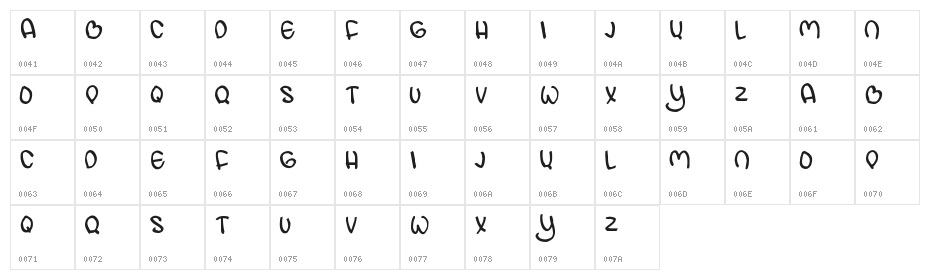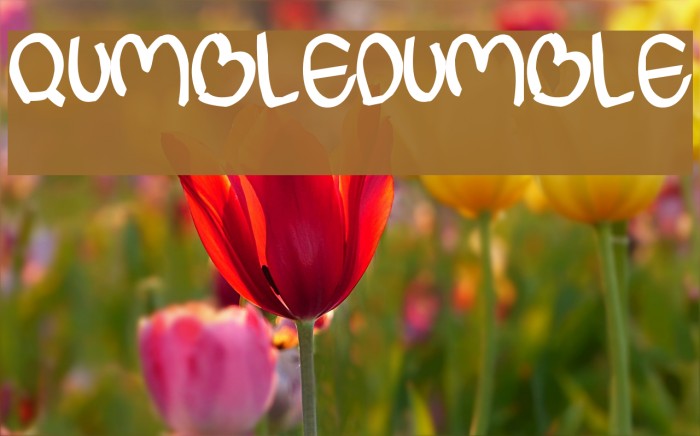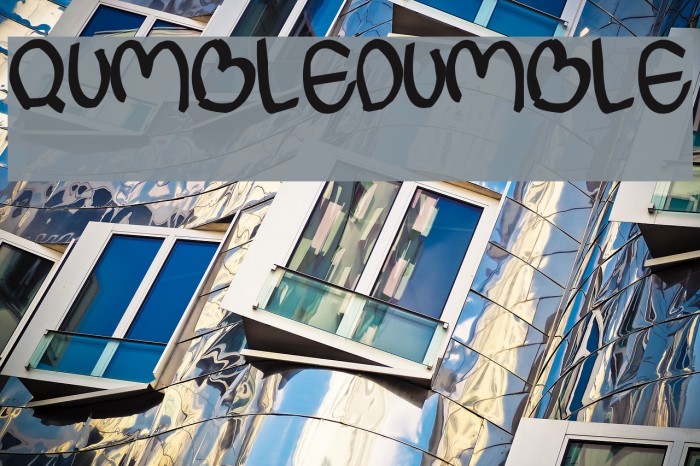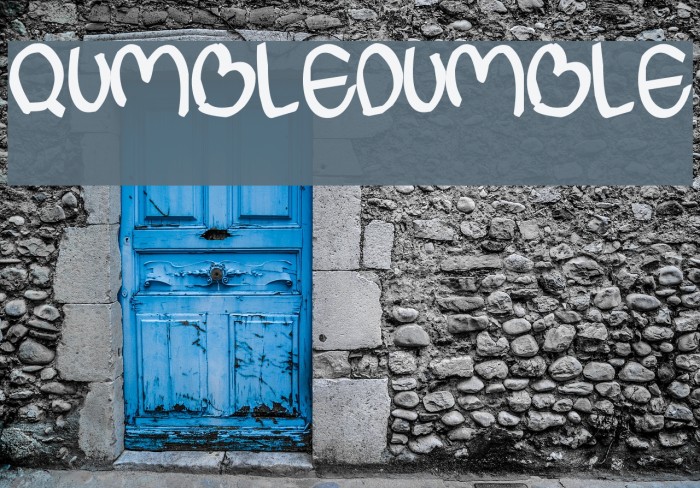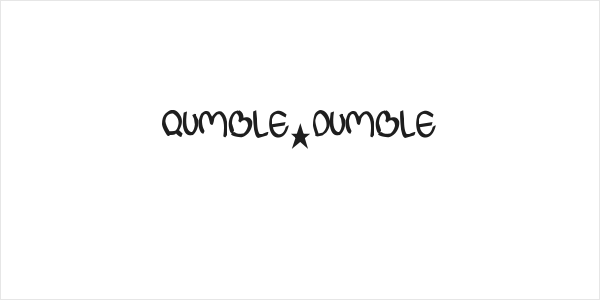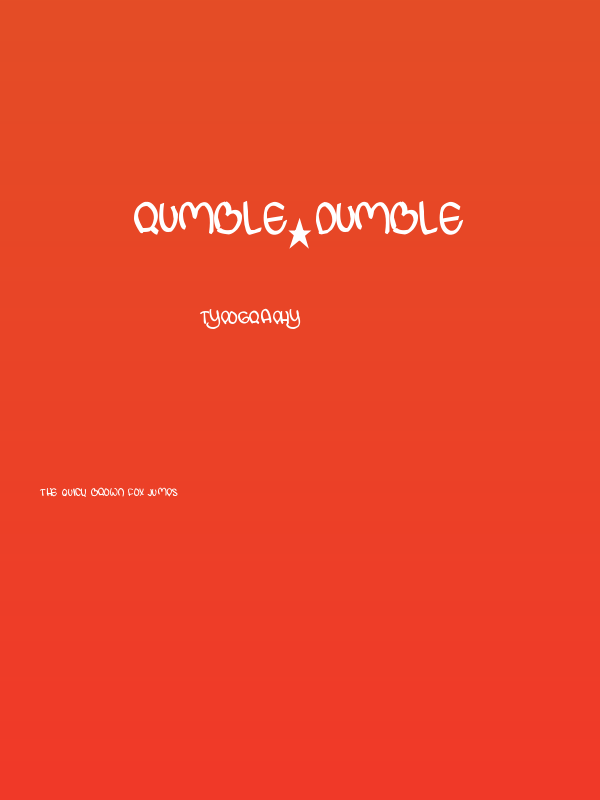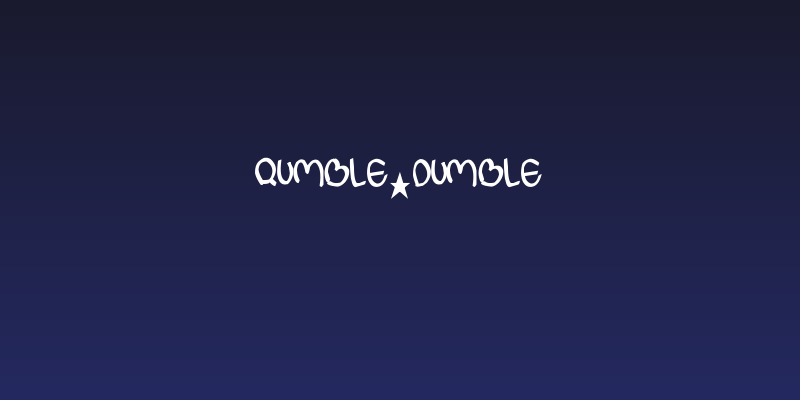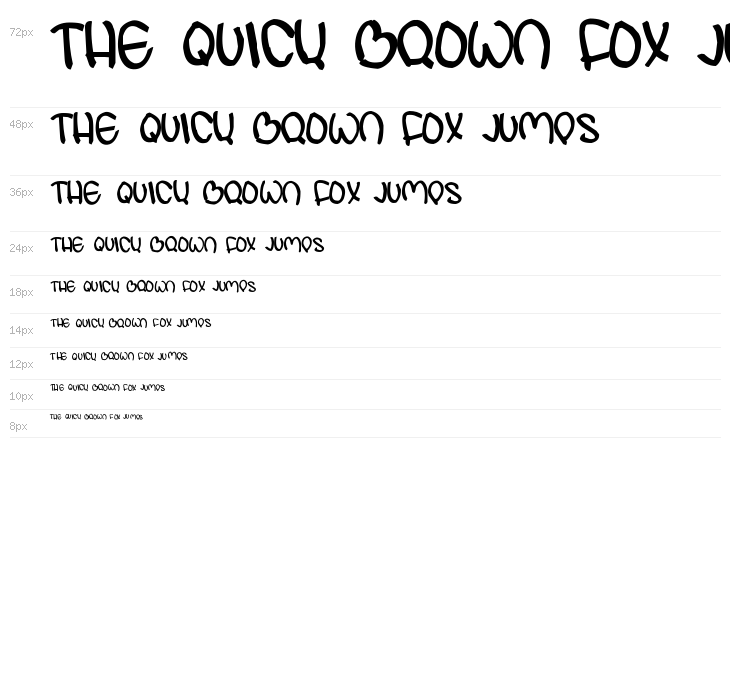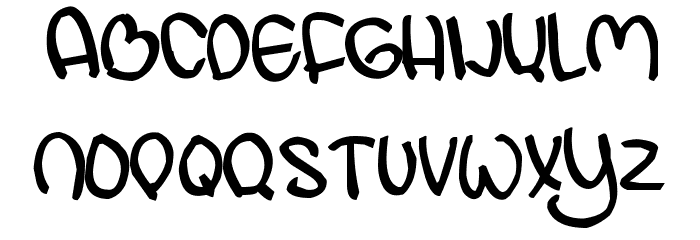
Rumble-Dumble Font
Rumble-Dumble Description
This playful and whimsical font features bold, rounded characters with a hand-drawn appearance. The letters have a consistent thickness, creating a uniform look that is both approachable and friendly. The curves are smooth and flowing, giving the text a lively and energetic feel. The font's unique style is characterized by its decorative elements, such as the looped strokes and exaggerated curves, which add a touch of fun and creativity. This font is ideal for projects that require a casual and informal tone, making it perfect for children's books, playful branding, or creative invitations.
| Proposed Projects | Children's books, playful branding, creative invitations, casual posters. |